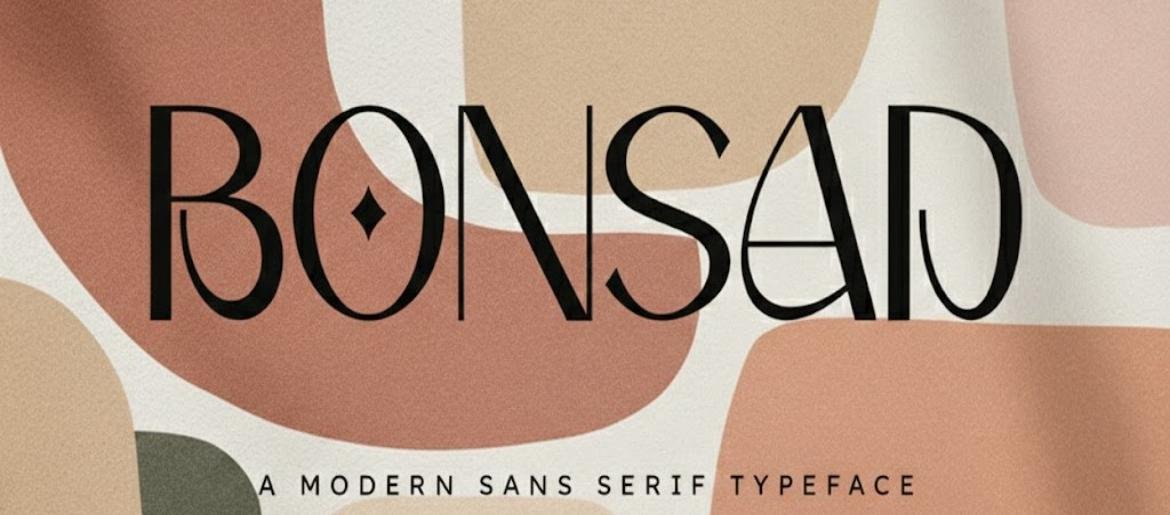
Bonsad Font
Bonsad Font by Muhammad Yafinuha is a modern display typeface with bold structure and clean, confident letterforms. Its strong visual presence makes it an excellent choice for logos, headlines, posters, and branding projects.
Designer: Muhammad Yafinuha
Style: Display, Sans Serif, Modern, Bold